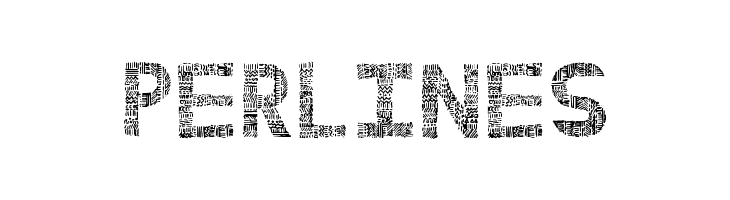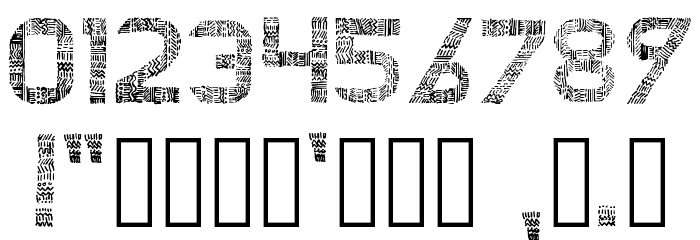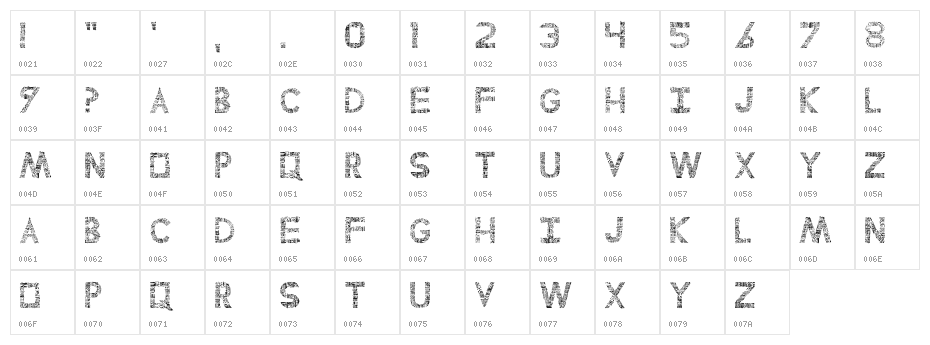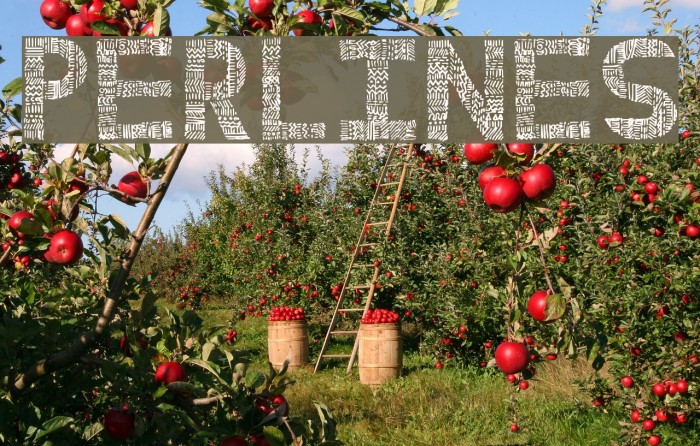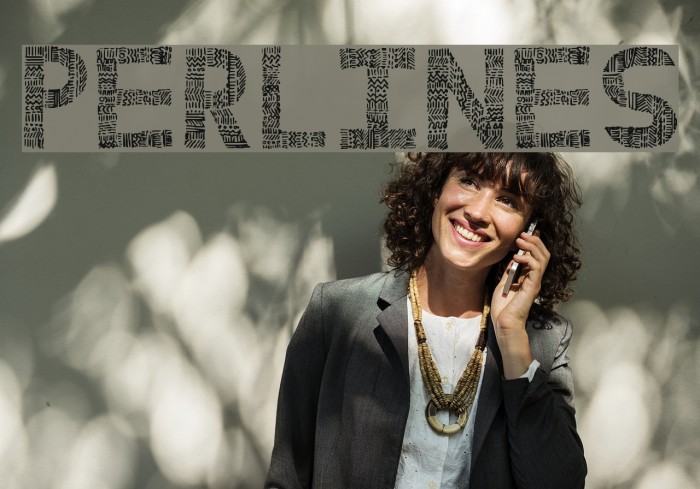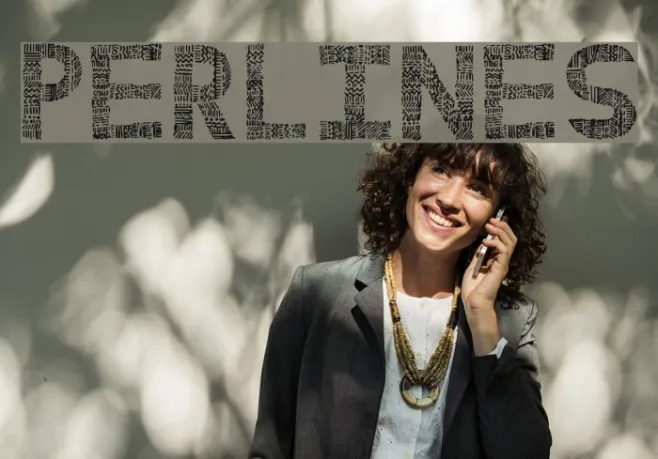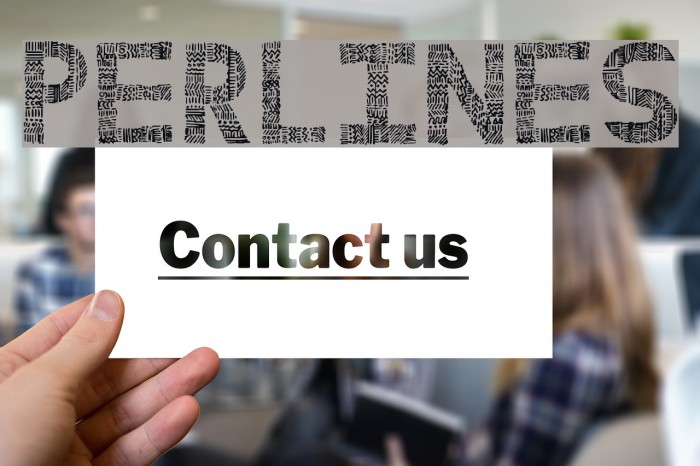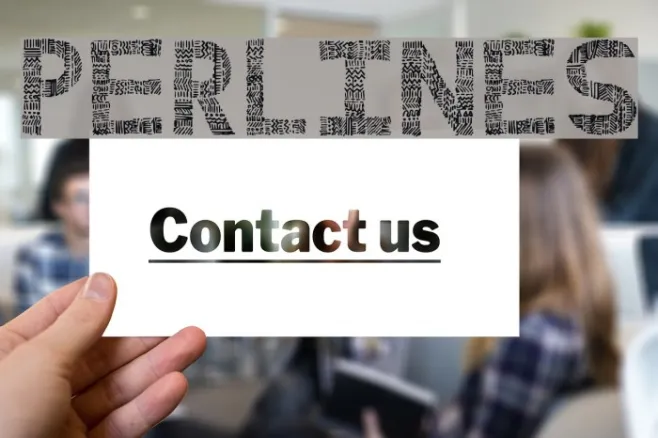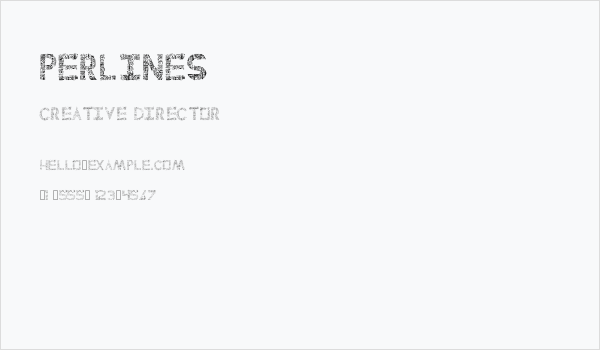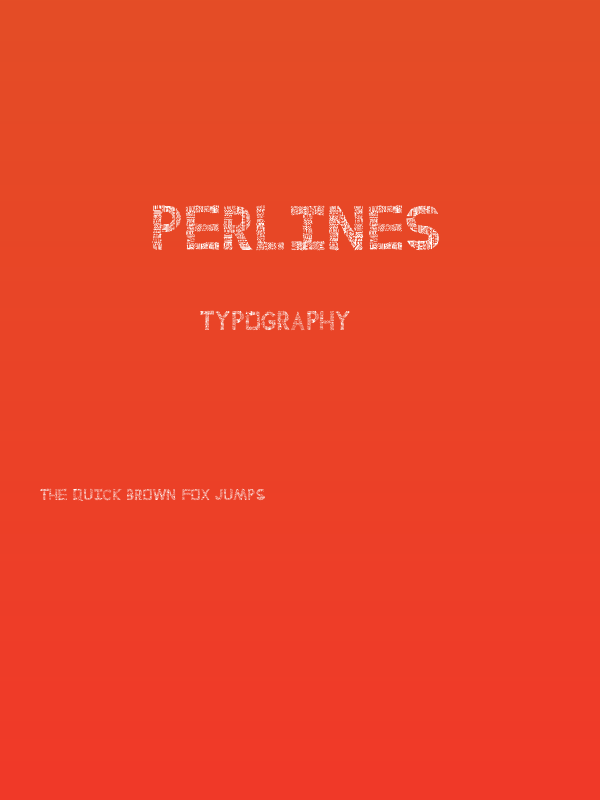
PERLINES Font
PERLINES Description
This font features a unique and intricate design, where each character is composed of a series of parallel lines that create a textured, almost woven appearance. The uppercase and lowercase letters maintain a consistent style, with the lines varying in direction to form the distinct shapes of each character. The numerals and special characters follow the same pattern, ensuring a cohesive look across all glyphs. This font's detailed and decorative nature makes it stand out, offering a visually engaging experience.
Proposed ProjectsIdeal for artistic projects, posters, branding, and any design work that requires a bold and decorative typeface.